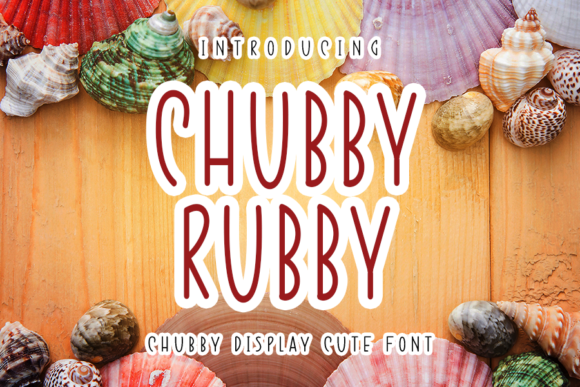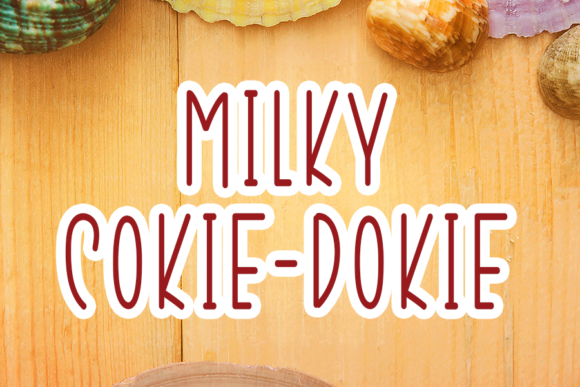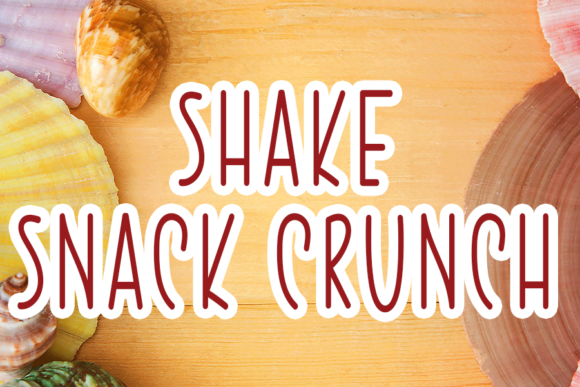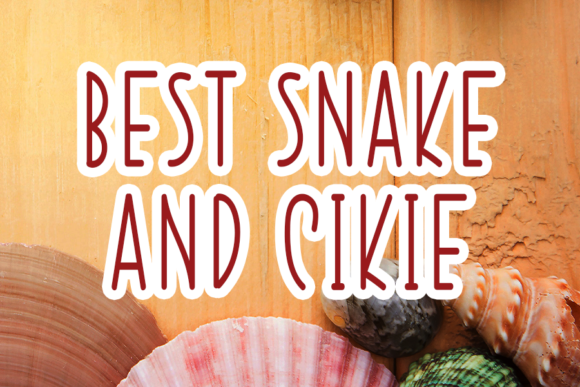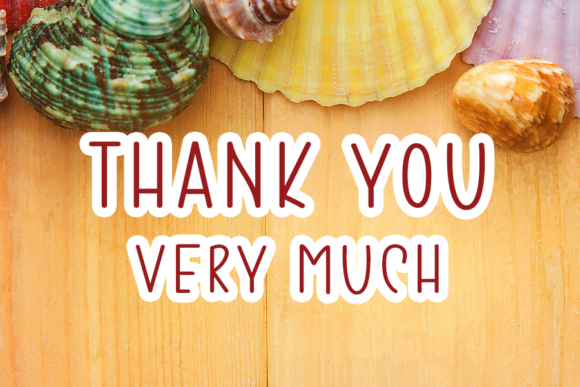
Chubby Rubby Font
About Chubby Rubby Font
Chubby Rubby is a stylish handwritten font, with a very authentic feel. Designed to be a true favorite, this font will be an ideal match in formal and non-formal contexts.